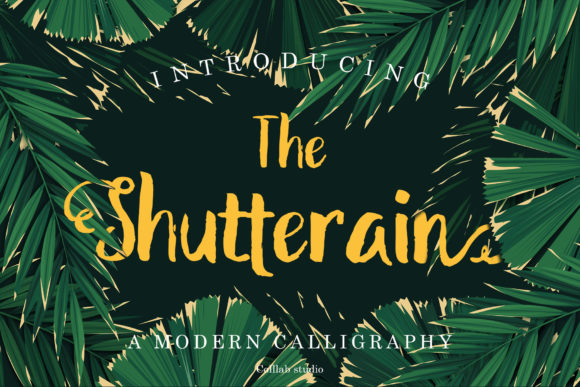
Unveil the Elegance of Your Wedding Invitations with The Shutterain Script Font
Experience the magic of The Shutterain, a captivating modern handwritten font that will transform your wedding invitations into works of art. With its meticulously crafted strokes and breathtaking flow, this font captures the essence of romance and sophistication, leaving a lasting impression on your guests.
As a bride or groom-to-be, you deserve invitations that reflect the beauty and uniqueness of your love story. The Shutterain's delicate curves and enchanting details will add a touch of elegance to your invitations, making them a cherished keepsake. Imagine your guests' eyes lighting up as they receive these invitations, feeling the love and excitement radiating from every word.
The Shutterain Font: A Timeless Legacy for Your Special Day
The Shutterain is not just a font; it's an artistic masterpiece that will elevate your wedding invitations beyond the ordinary. Its timeless design blends seamlessly with any invitation style, whether you prefer classic, rustic, or modern. The font's versatility allows you to express your creativity and create invitations that are distinctly yours.
Let your words dance across the page in the graceful strokes of The Shutterain. Each letter is a work of art, carefully crafted to convey emotions and create a truly immersive experience. Your guests will be captivated by the beauty of your invitations, feeling a deep connection to the joy and love you share.
The Shutterain Script Font: A Love Story Immortalized in Ink
With The Shutterain font, your wedding invitations become more than just pieces of paper; they become tangible expressions of your love. Each word, each line, is a testament to the unbreakable bond you've found. As your guests read your invitations, they'll feel the sincerity and warmth of your love, making your special day even more unforgettable.
Choose The Shutterain font and embark on a journey of love and elegance. Let your wedding invitations radiate the joy and beauty of your love story, creating a lasting memory that you and your partner will treasure forever. Embrace the magic of The Shutterain and make your wedding invitations a reflection of your extraordinary love.